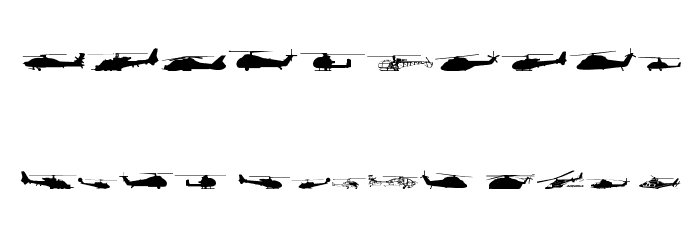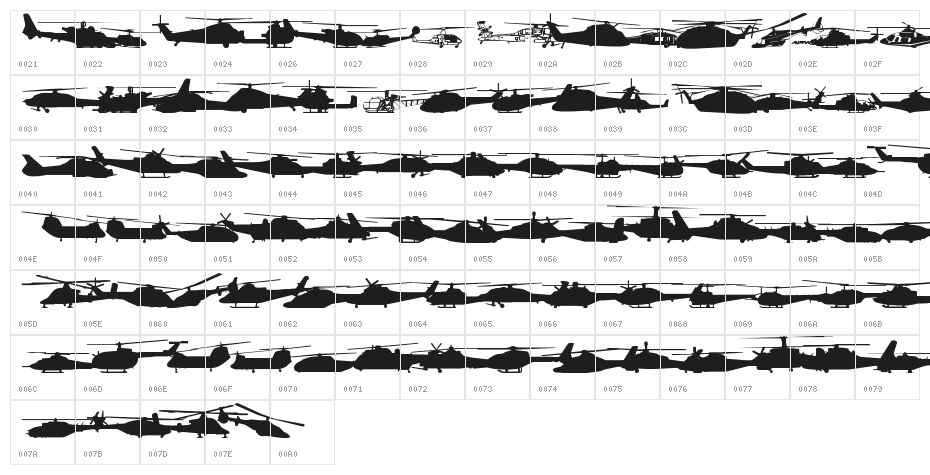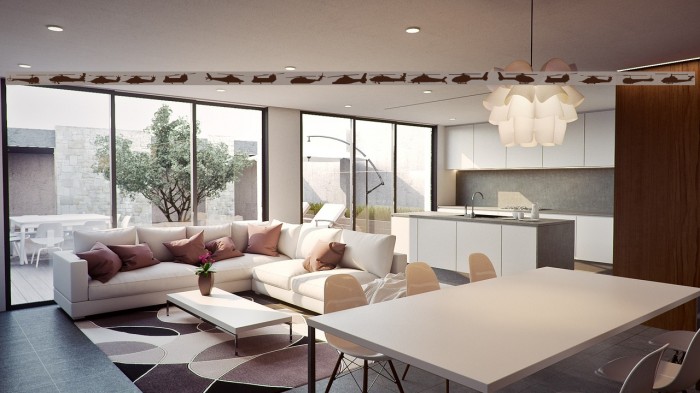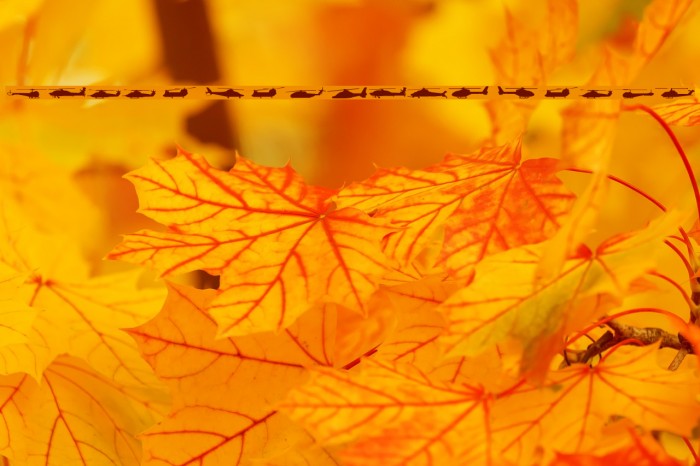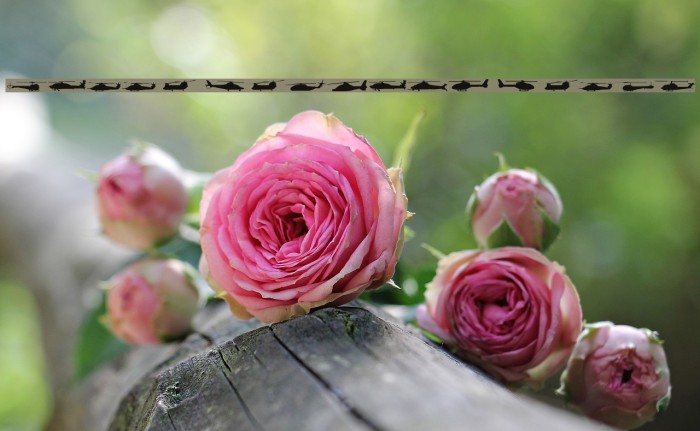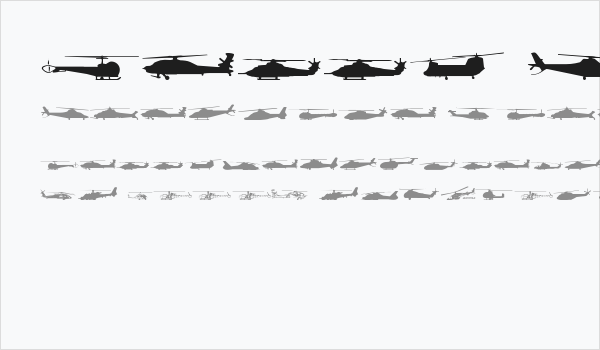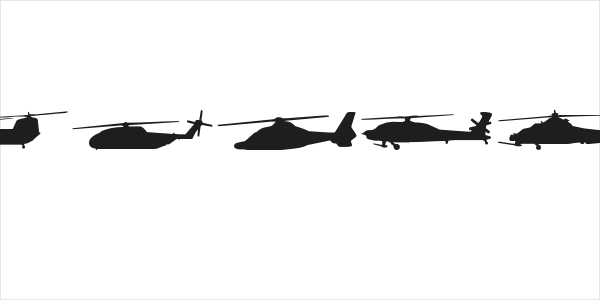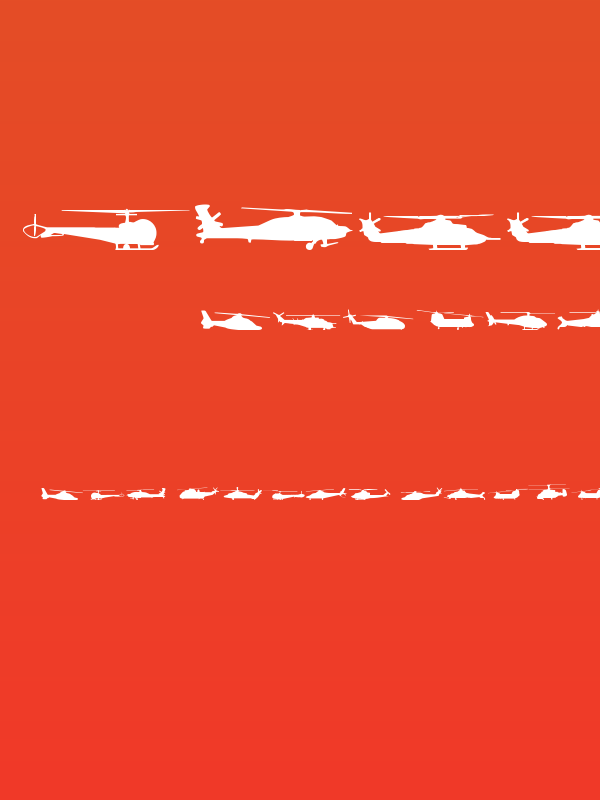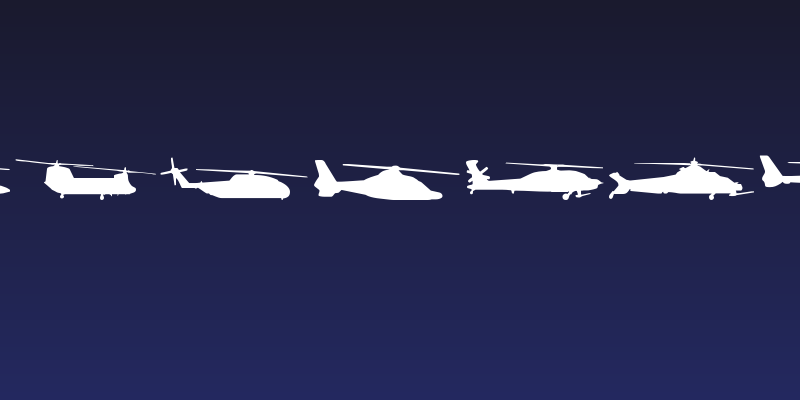
Hello Copters Solid Font
Hello Copters Solid Description
This is a decorative font featuring silhouettes of various helicopter designs. Each character is represented by a unique helicopter shape, showcasing different models and styles. The font is highly detailed, capturing the distinct outlines and rotor blades of each helicopter. It is designed to be visually striking, with each character offering a unique silhouette that stands out against the background. The font is ideal for projects that require a thematic or novelty approach, particularly those related to aviation, military, or transportation themes.
| Use Case | Logos, Posters, Thematic Designs |
| Proposed Projects | Ideal for aviation-themed posters, military event flyers, transportation-related graphics, and novelty design projects. |